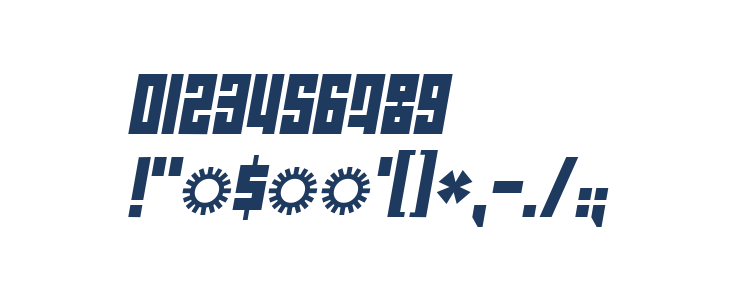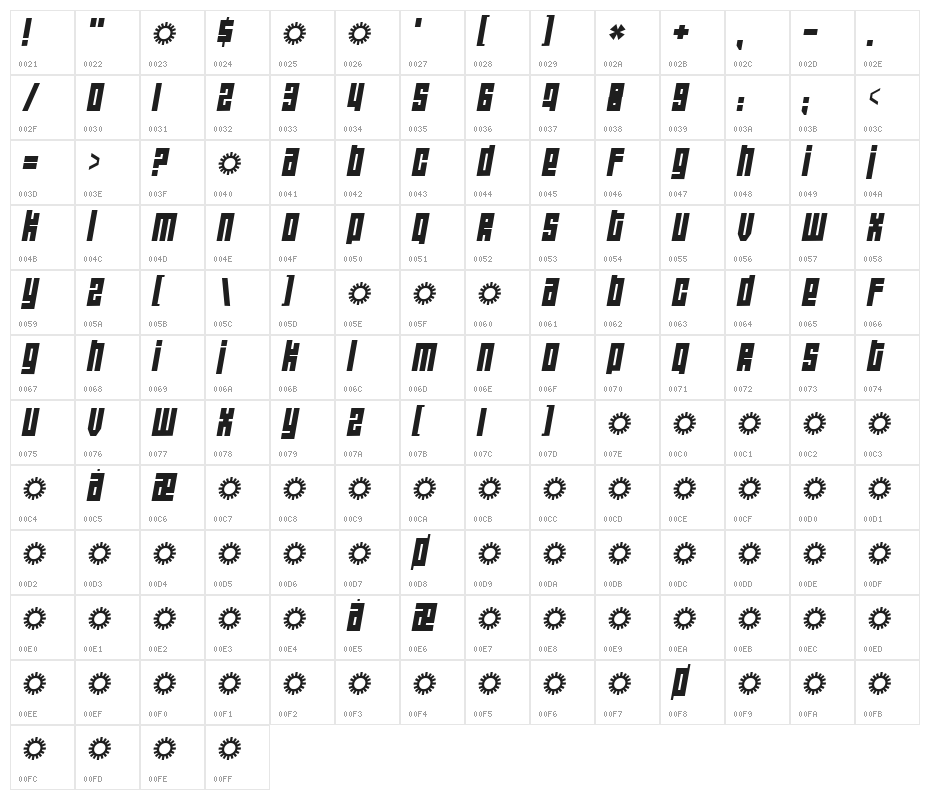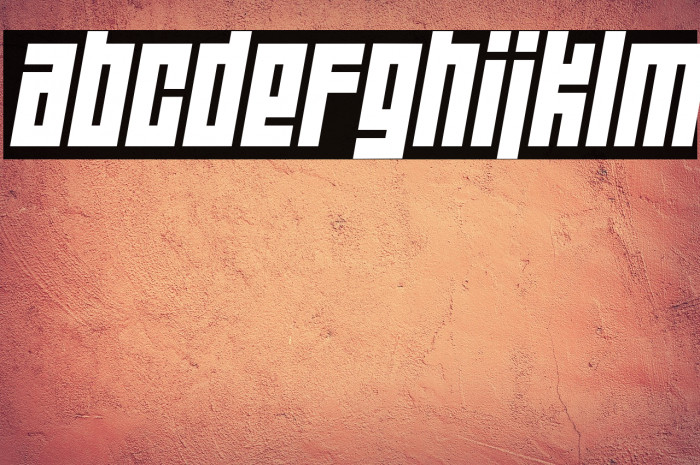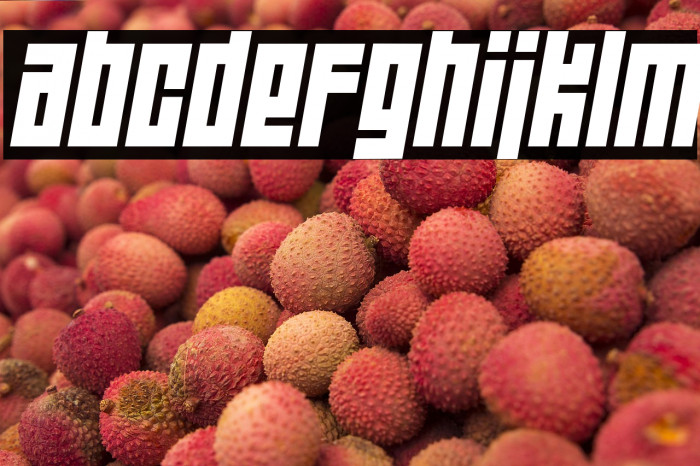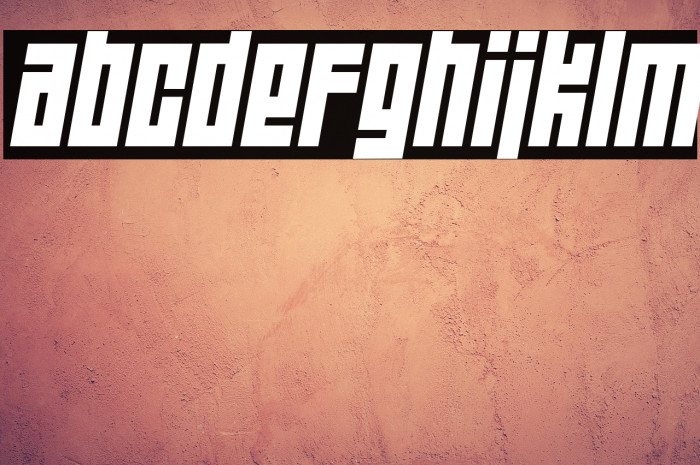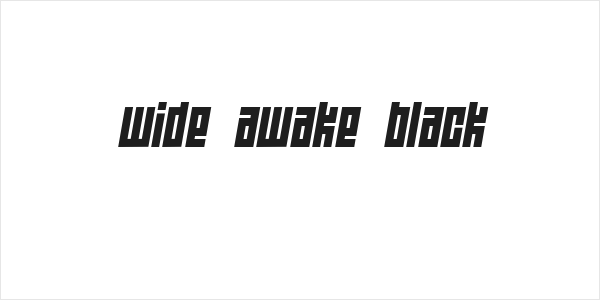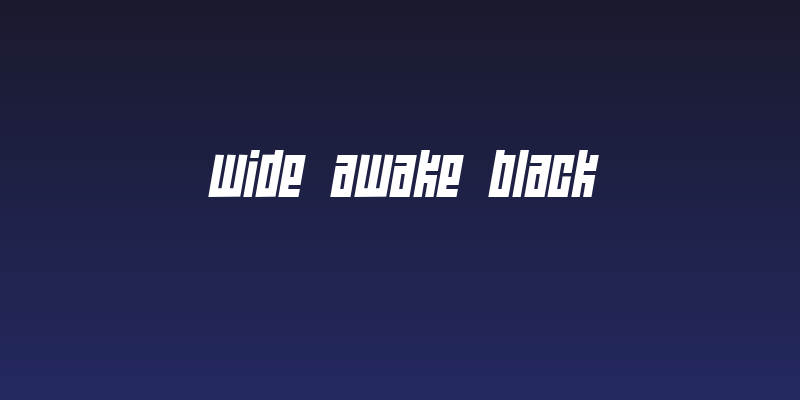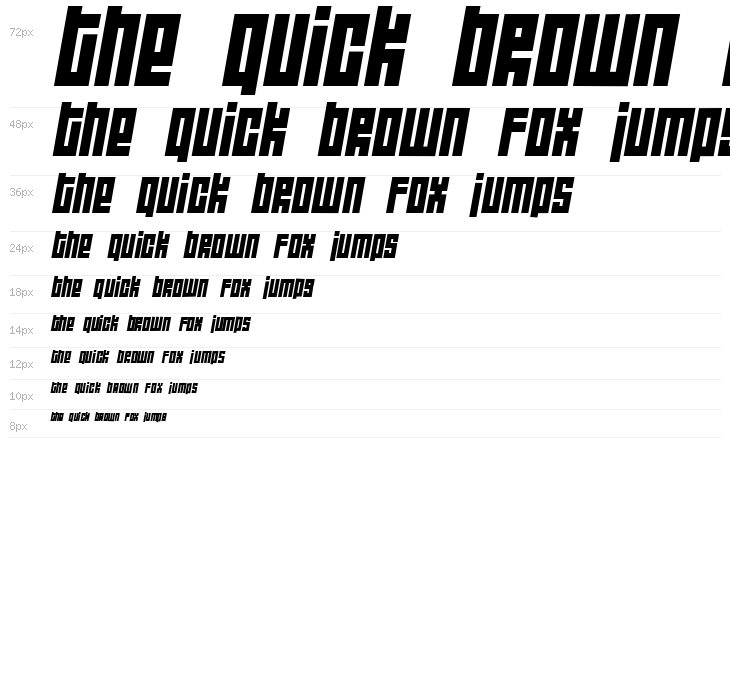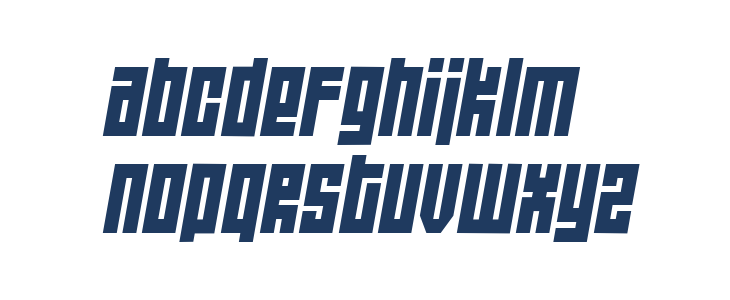
Wide awake Black Font
Wide awake Black Description
This font features a bold and dynamic style with a strong geometric influence. The characters are sharply angled and have a distinct slant, giving them a sense of motion and energy. The uppercase and lowercase letters maintain a consistent height, contributing to a uniform appearance. The numbers and special characters are designed with the same angular and bold characteristics, ensuring a cohesive look across all elements. This font's unique style makes it stand out, making it ideal for projects that require a modern and impactful visual presence.
| Proposed Projects | Ideal for branding, posters, headlines, and any design requiring a strong visual impact. |